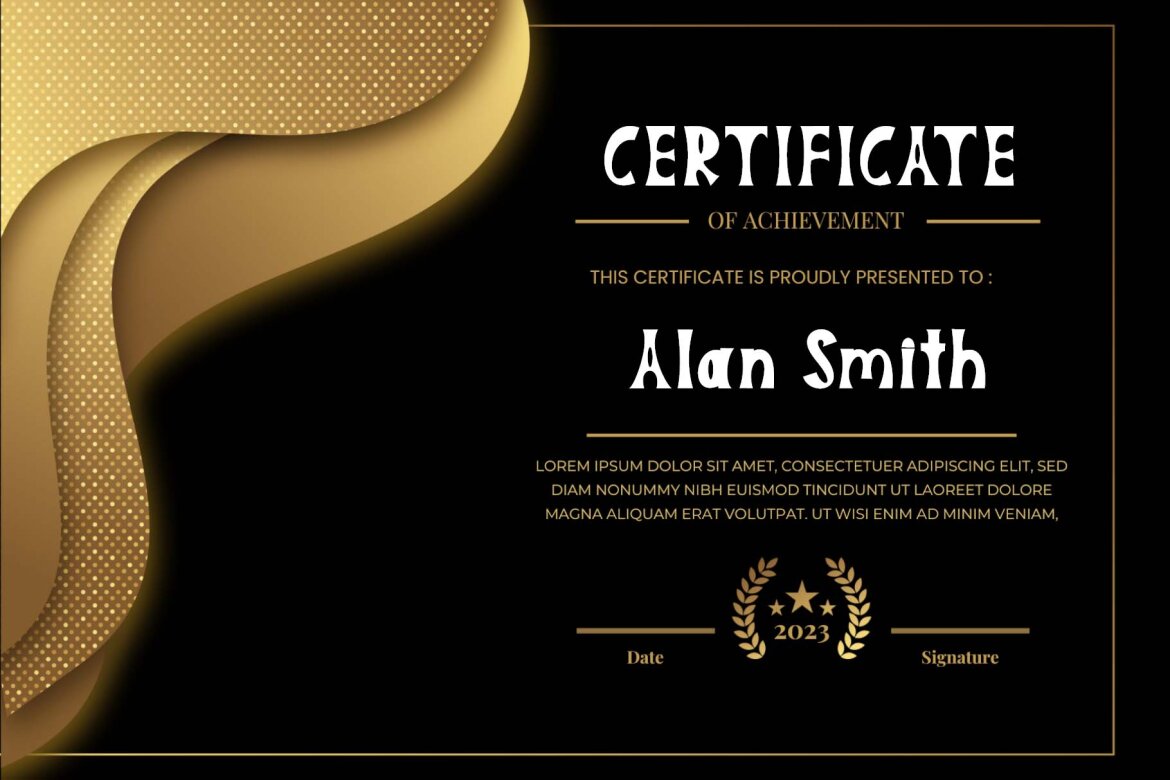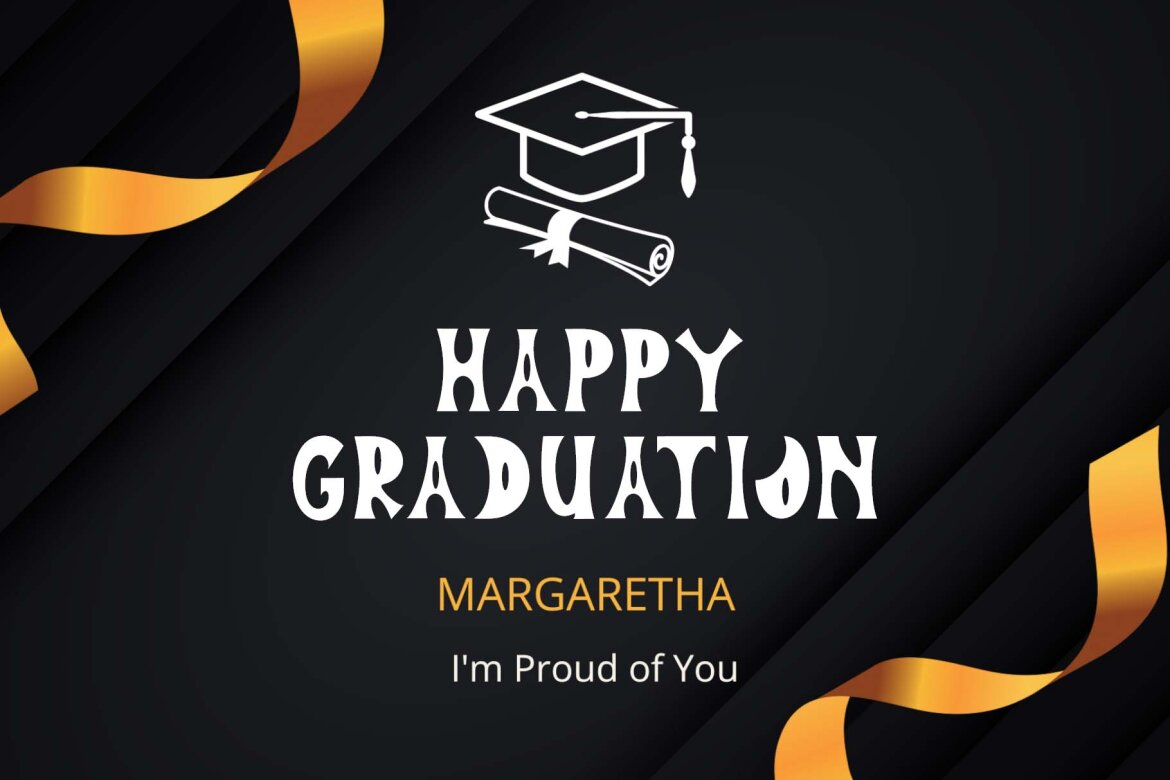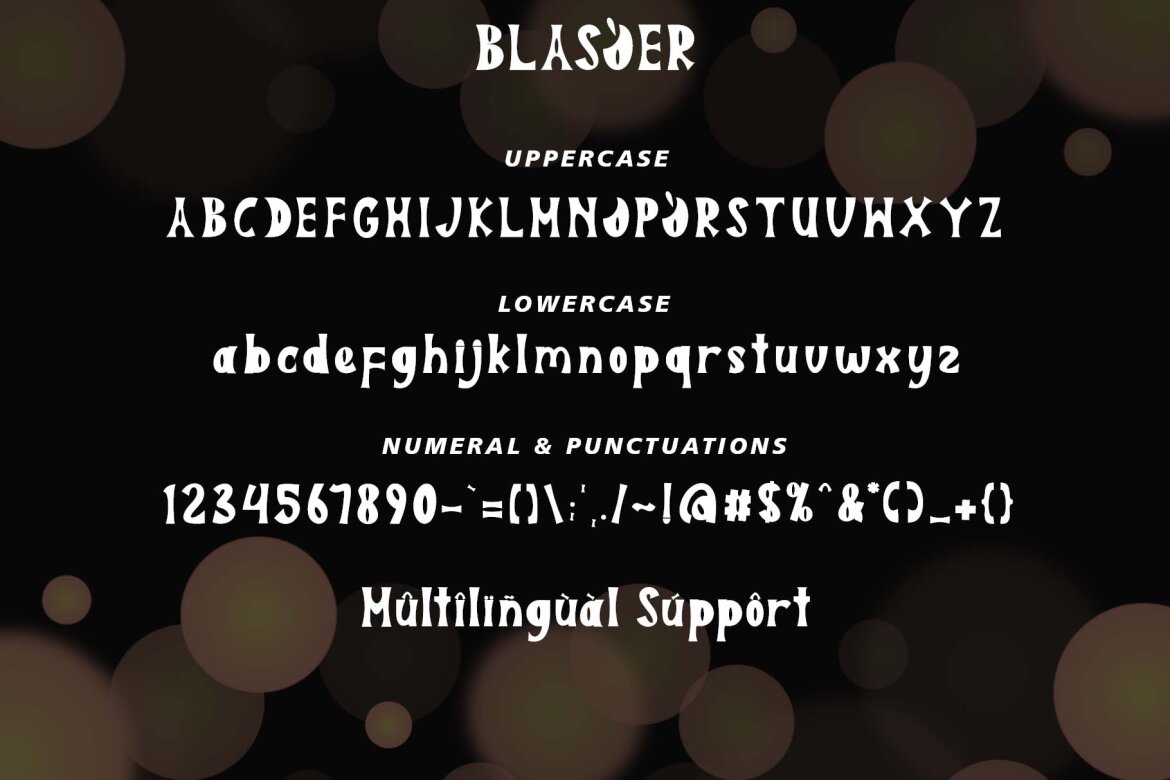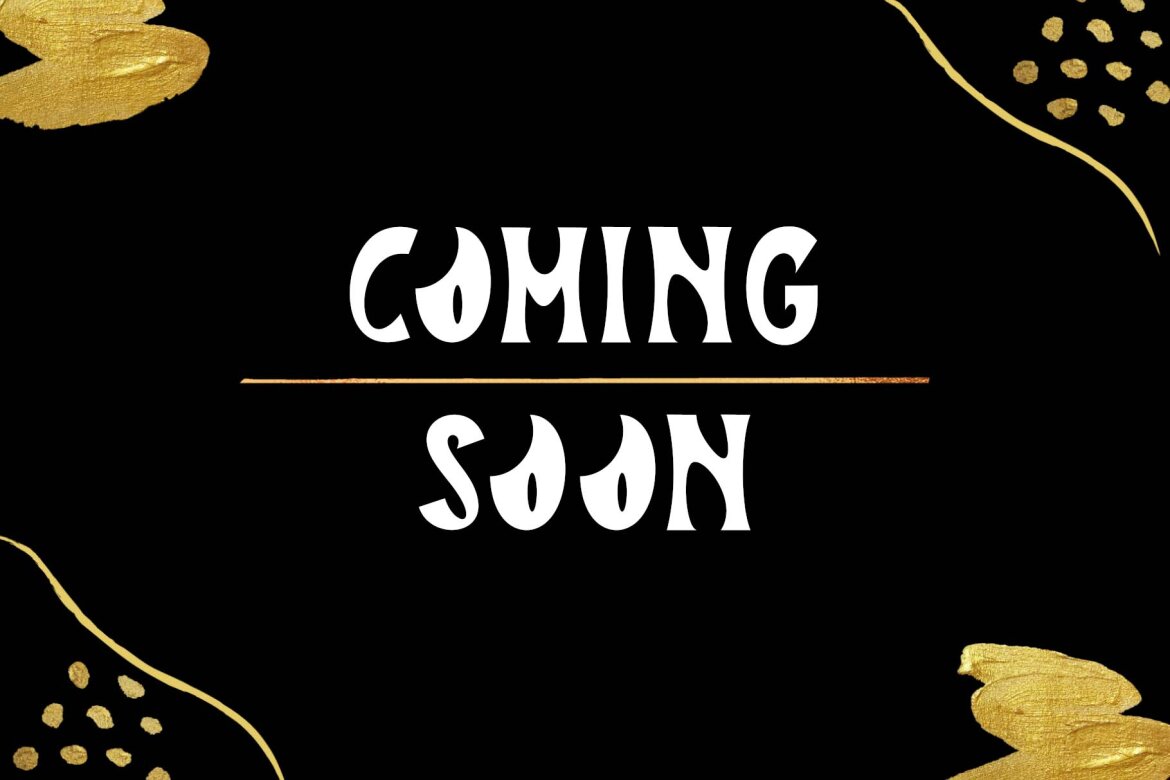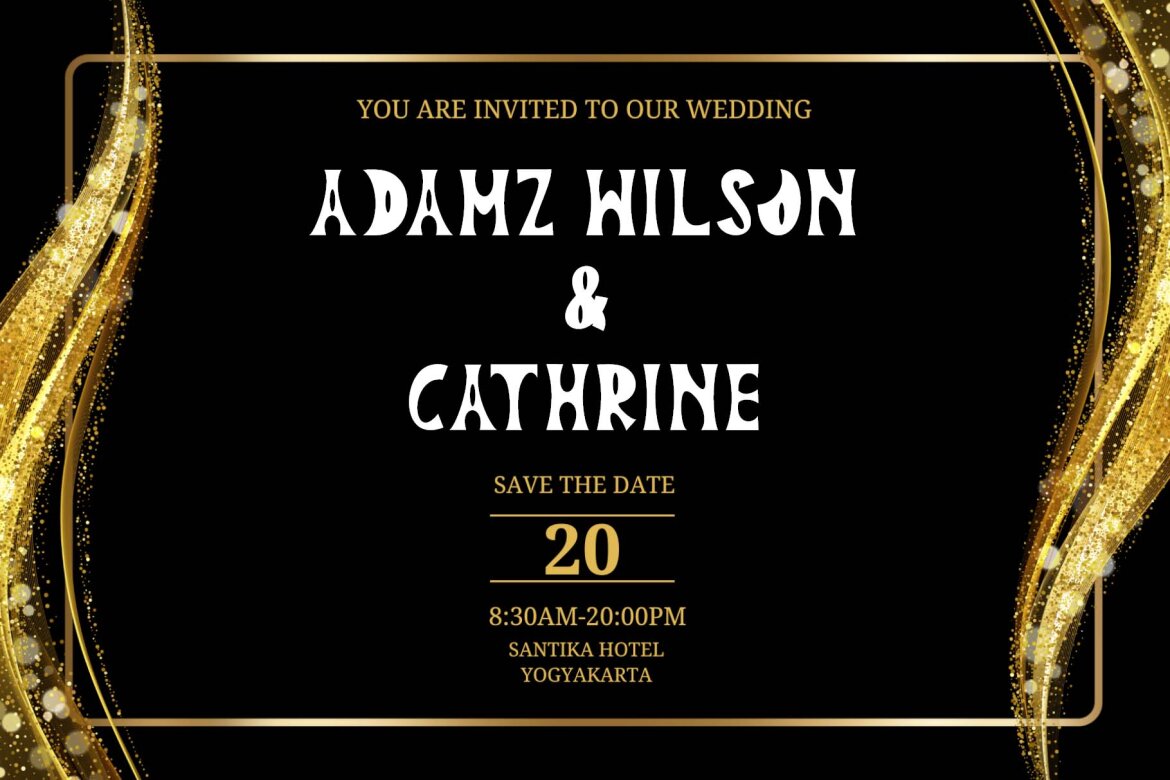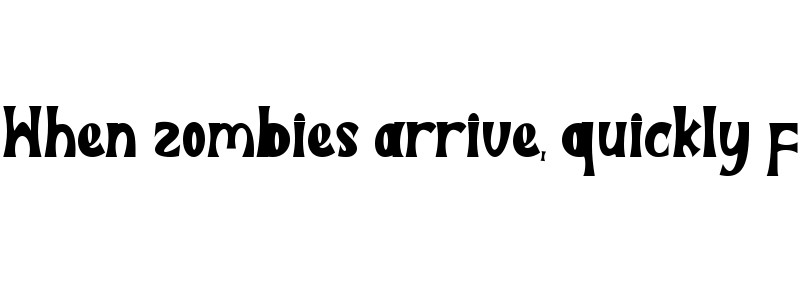
Blasqer FREE Font
"Blasqer" is a retro font that has a unique and elegant shape. This font is very easy to use because it has been specially designed. Equipped with uppercase, lowercase, numerals, punctuations and multilingual support. It is suitable for logos, invitations, certificates, awards, film titles and so on.
• lowercase
• numeral
• punctuations
• uppercase